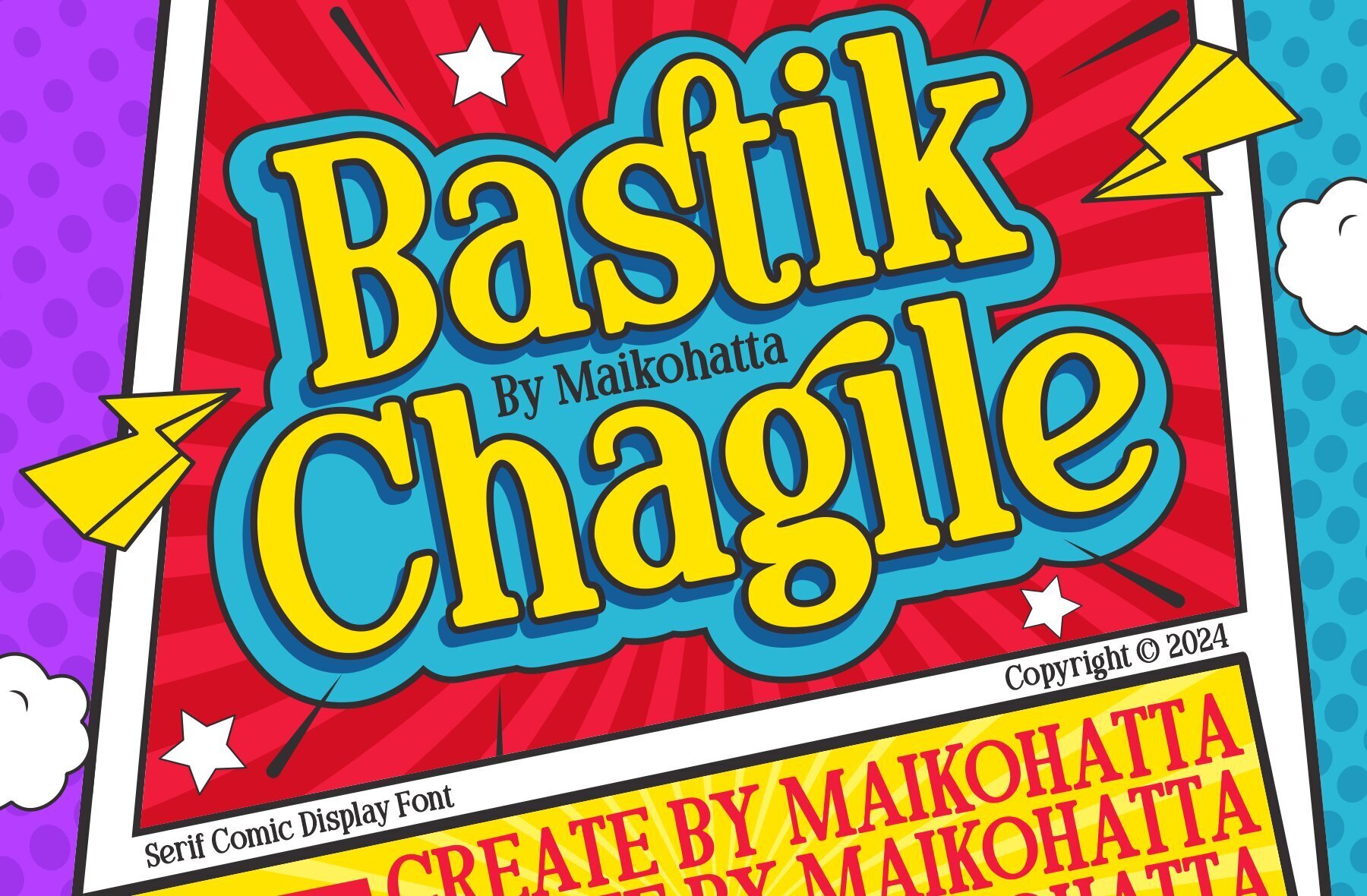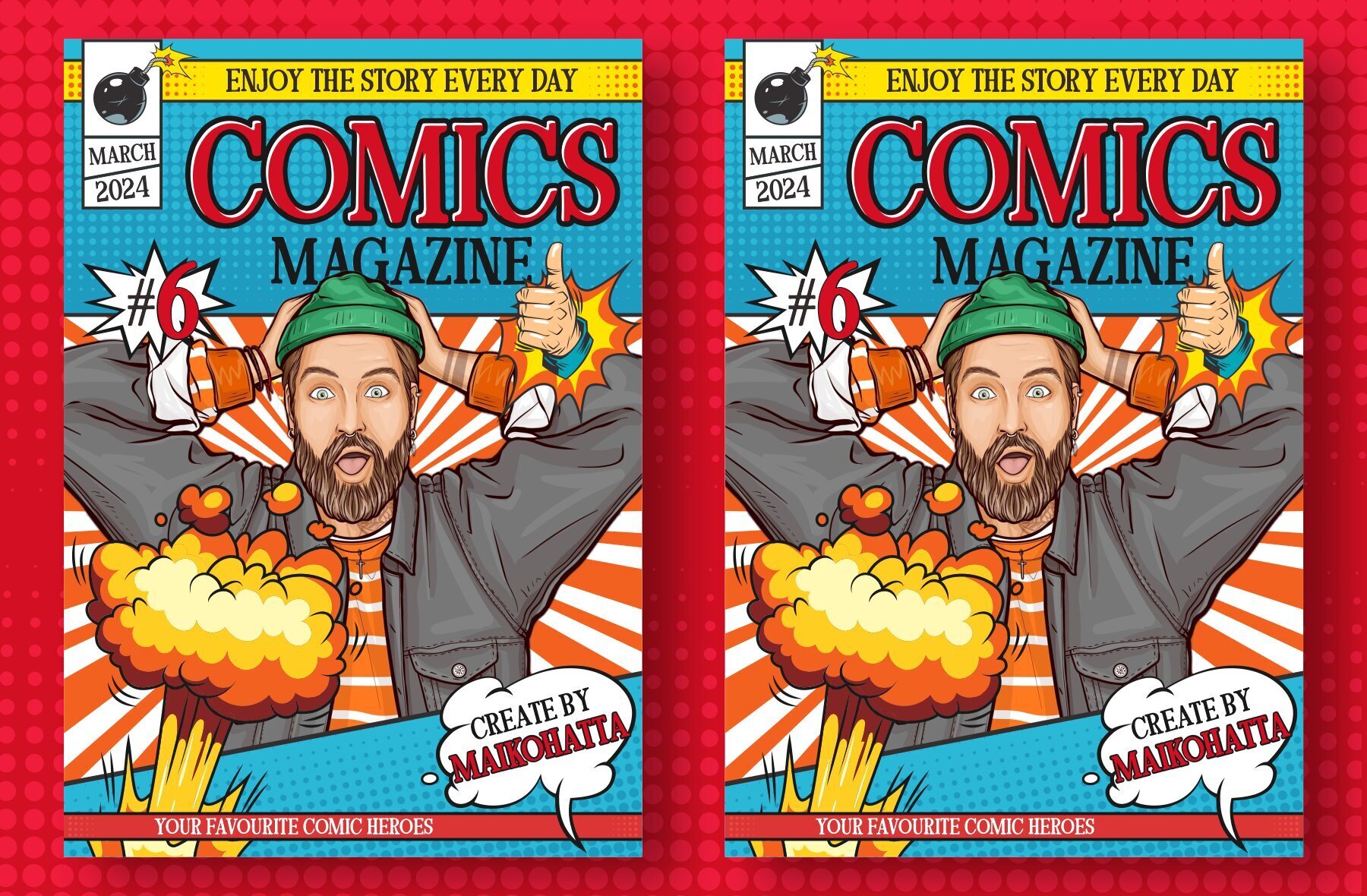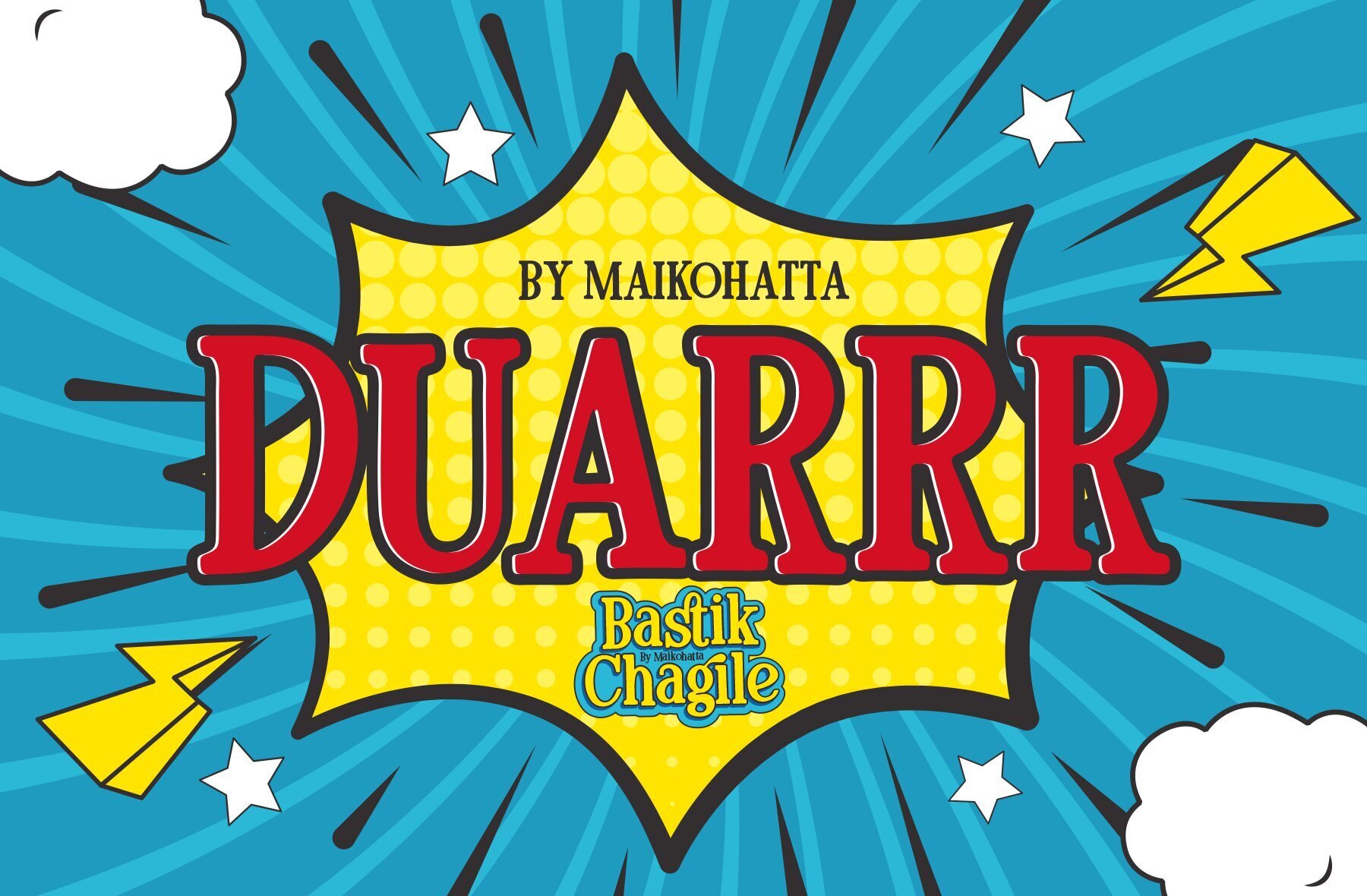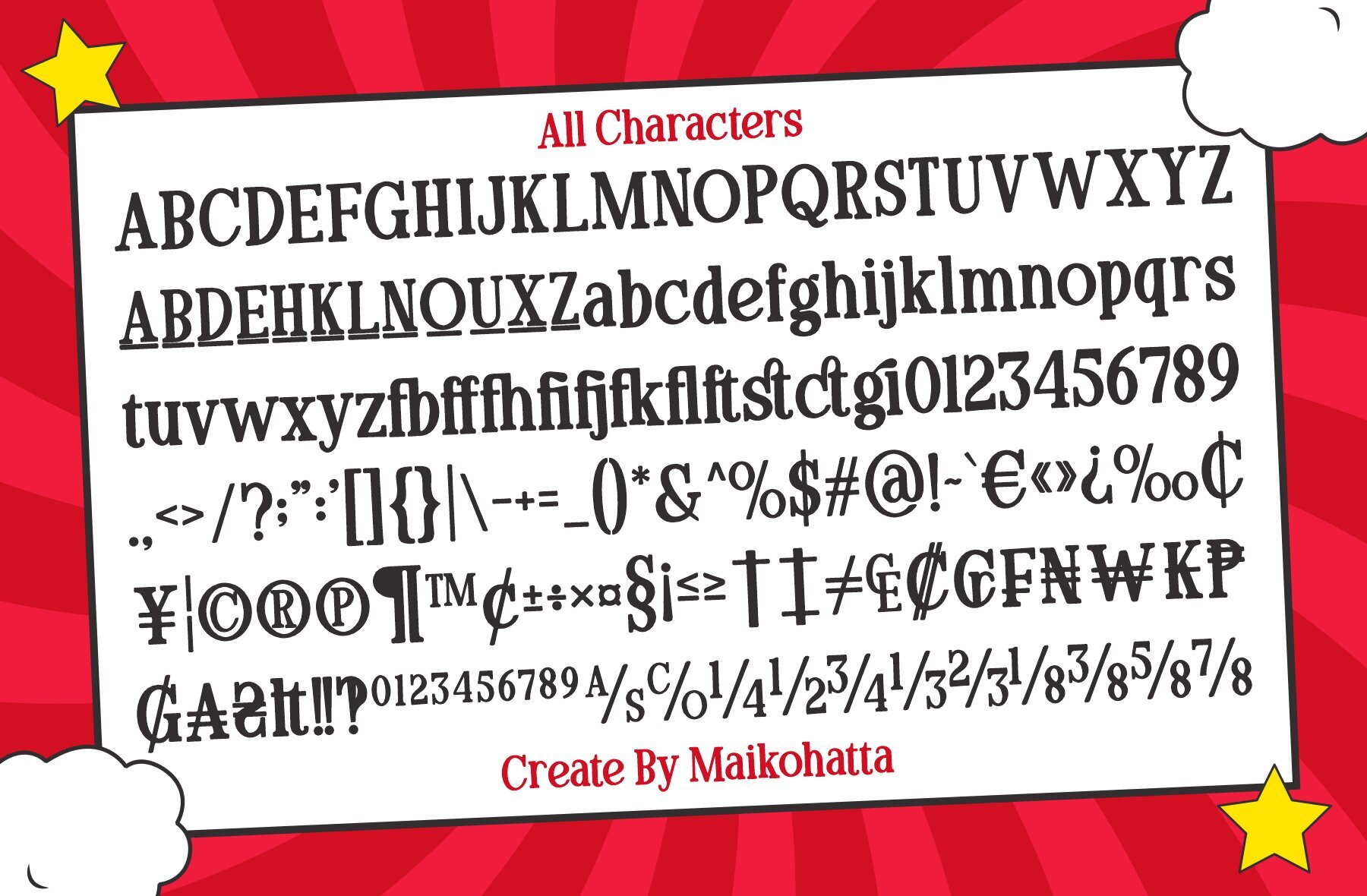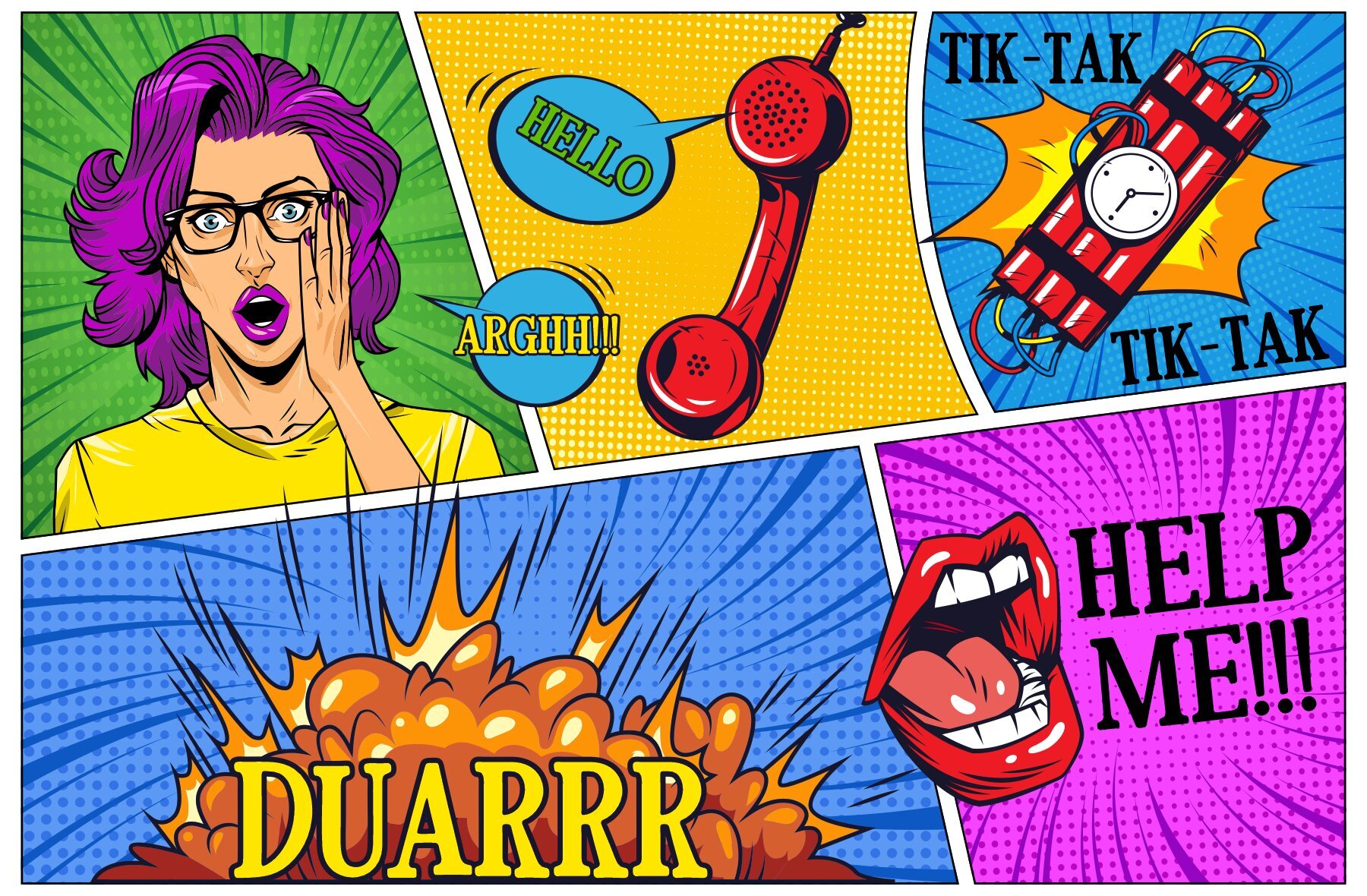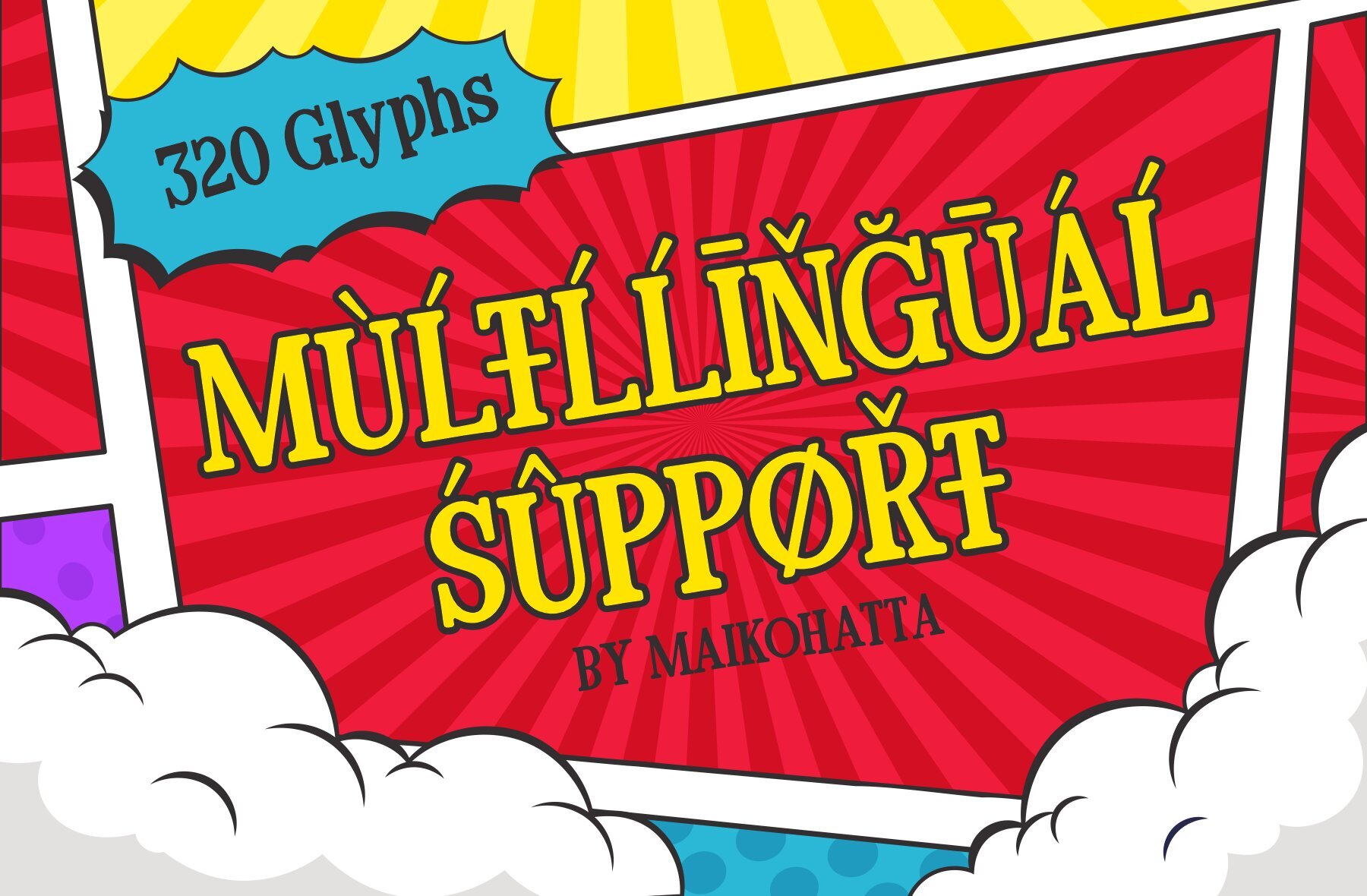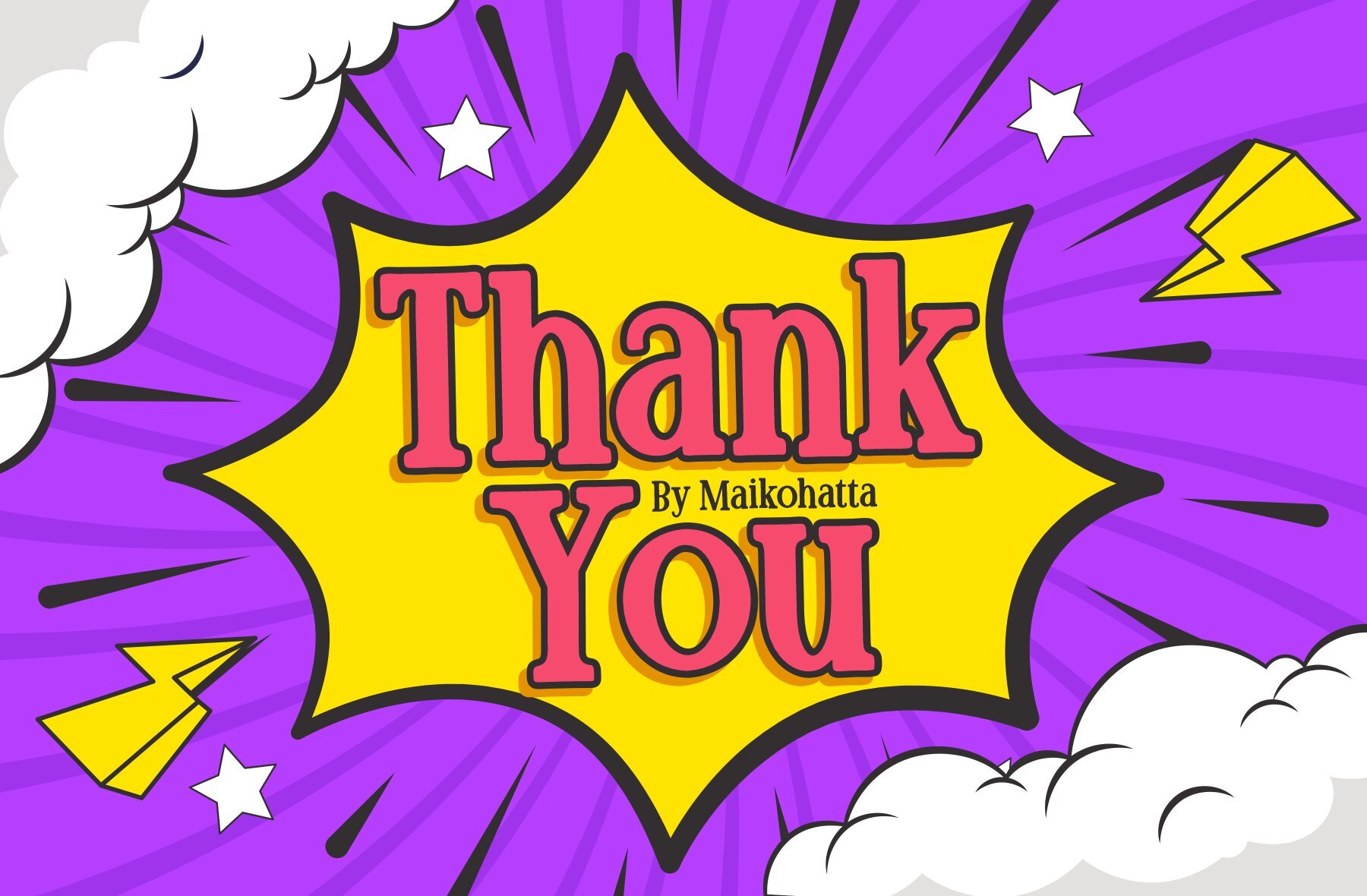
Bastik Chagile Font
Bastik Chagile
Bastik Chagile by Maikohatta is a Serif Comic Display Font that captures the essence of joy and cheerfulness. This font features a unique handwritten style reminiscent of the one often found in comics and cartoons, adding a light, playful atmosphere to your projects.Bastik Chagile: Serif Comic Display Font